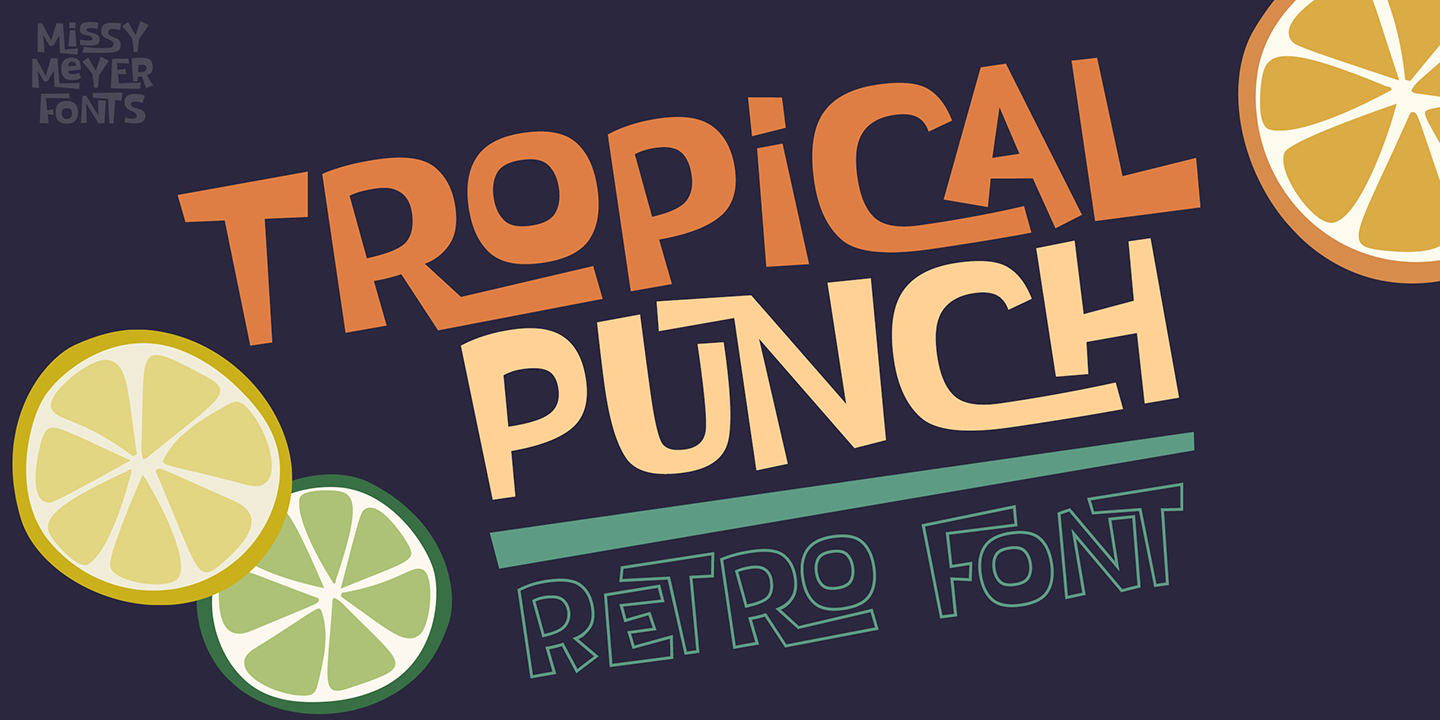
The Tropical Punch Font excels in various design applications including vibrant tropical resort branding, energetic tiki bar signage, colorful juice bar marketing, exotic fruit packaging, summer beach party materials, tropical vacation promotions, Caribbean restaurant communications, vibrant smoothie shop identities, festive island event signage, and spirited tropical projects that demand punch energy and paradise sophistication.
What makes the Tropical Punch Font exciting is its explosive embodiment of tropical energy and paradise vibrancy through letterforms that capture the essence of tropical fruit punch and the exhilarating excitement of island paradise adventures. This typeface demonstrates exceptional vitality through carefully crafted characters that suggest the bold flavors of tropical fruits, the energetic spirit of beach celebrations, and the vibrant atmosphere that makes tropical destinations so irresistibly appealing and joyfully refreshing. The font's punch personality makes it perfect for tropical businesses and vacation brands seeking to communicate paradise energy, tropical excitement, and the kind of vibrant celebration that creates unforgettable island experiences through typography that literally bursts with tropical enthusiasm.
The Tropical Punch Font family typically includes vibrant weight variations that enhance the tropical aesthetic, featuring energetic styling options and extended character sets optimized for vacation marketing and tropical communications. These family options often include paradise-inspired alternates, tropical symbols, and festive decorative elements that provide designers with comprehensive tools for creating authentically tropical typography that celebrates island culture while maintaining contemporary design appeal and vacation credibility.
Tourism professionals and tropical lifestyle brands consistently choose Tropical Punch Font Free Download for projects requiring typography that communicates tropical authenticity and paradise energy. This typeface delivers exceptional performance in vacation marketing, tropical branding, and island communications where establishing excitement and creating vibrant tropical atmosphere is essential for vacation appeal. The font's punch character makes it particularly effective for beverage and resort applications. Download Tropical Punch Font Free Download today to access this energetic typeface that transforms tropical communications with its paradise vibrancy and punch sophistication, creating compelling vacation experiences that celebrate the magnificent energy of tropical destinations while maintaining the festive spirit that makes island paradise absolutely irresistible and genuinely refreshing.